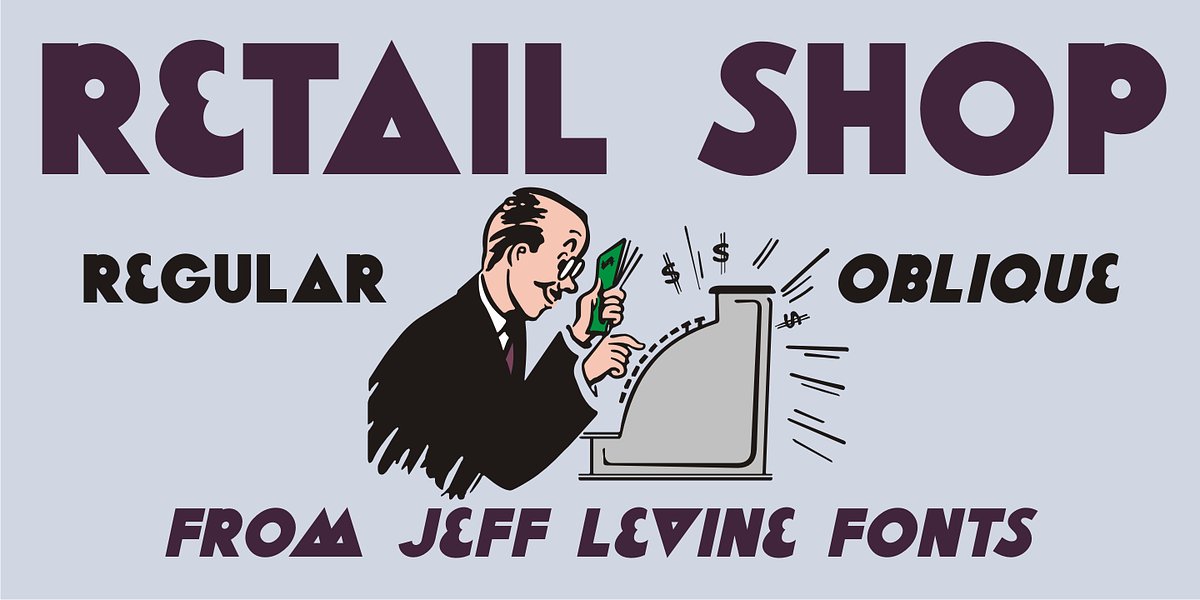
Retail Shop JNL
Vintage New York neon signage alongside the landmark Dubrow’s Cafeteria [probably circa the 1940s] of the words “retail shop” inspired the namesake digital type design.
Retail Shop JNL is a bold and somewhat eccentric Art Deco font with varying widths and unusual character forms available in both regular and oblique versions.